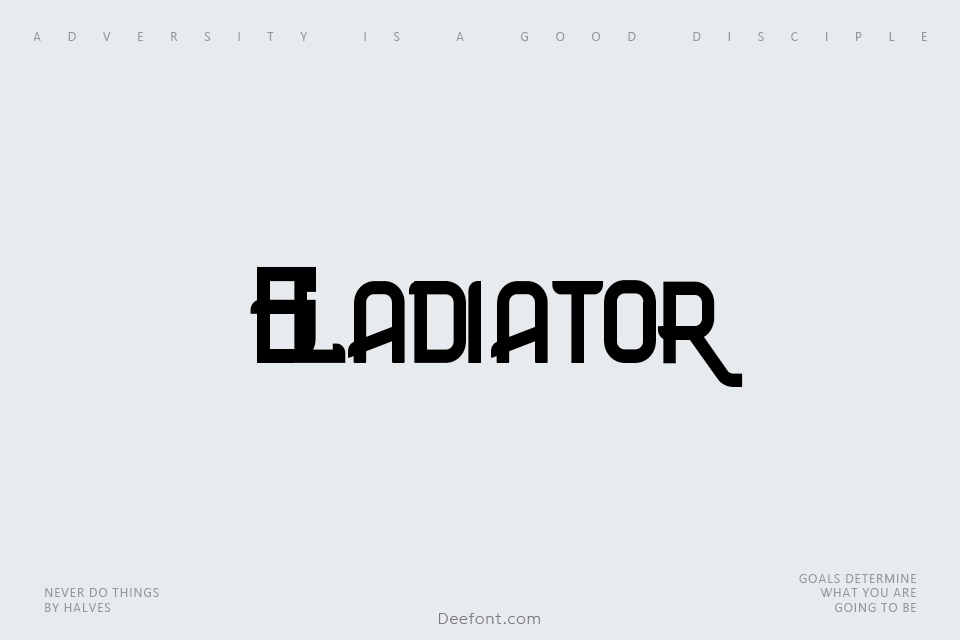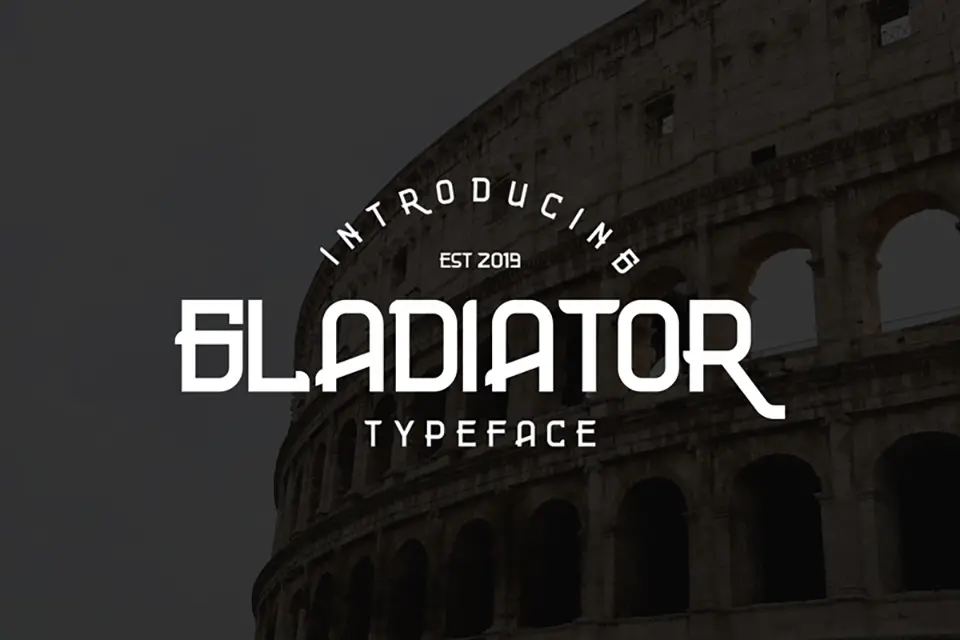
Gladiator Font
Gladiator is a bold display typeface designed by Fandi Kurniawan that captures the spirit of ancient Rome with powerful, commanding letterforms. This free retro font features strong geometric proportions perfect for logos, movie posters, and branding projects requiring maximum visual impact. With its confident aesthetic and versatile styling, Gladiator seamlessly transitions from modern commercial applications to historical-themed designs, making it an excellent choice for any project demanding a statement-making typeface.